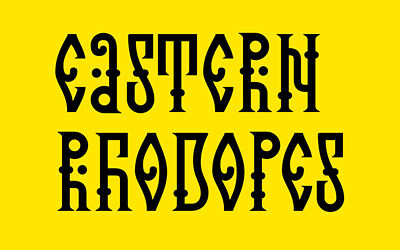
Balkara is a contemporary graphic interpretation of handwritten forms derived from medieval manuscripts and written samples of church mural.
Balkara font contains only uppercase letters with Latin and Cyrillic support.